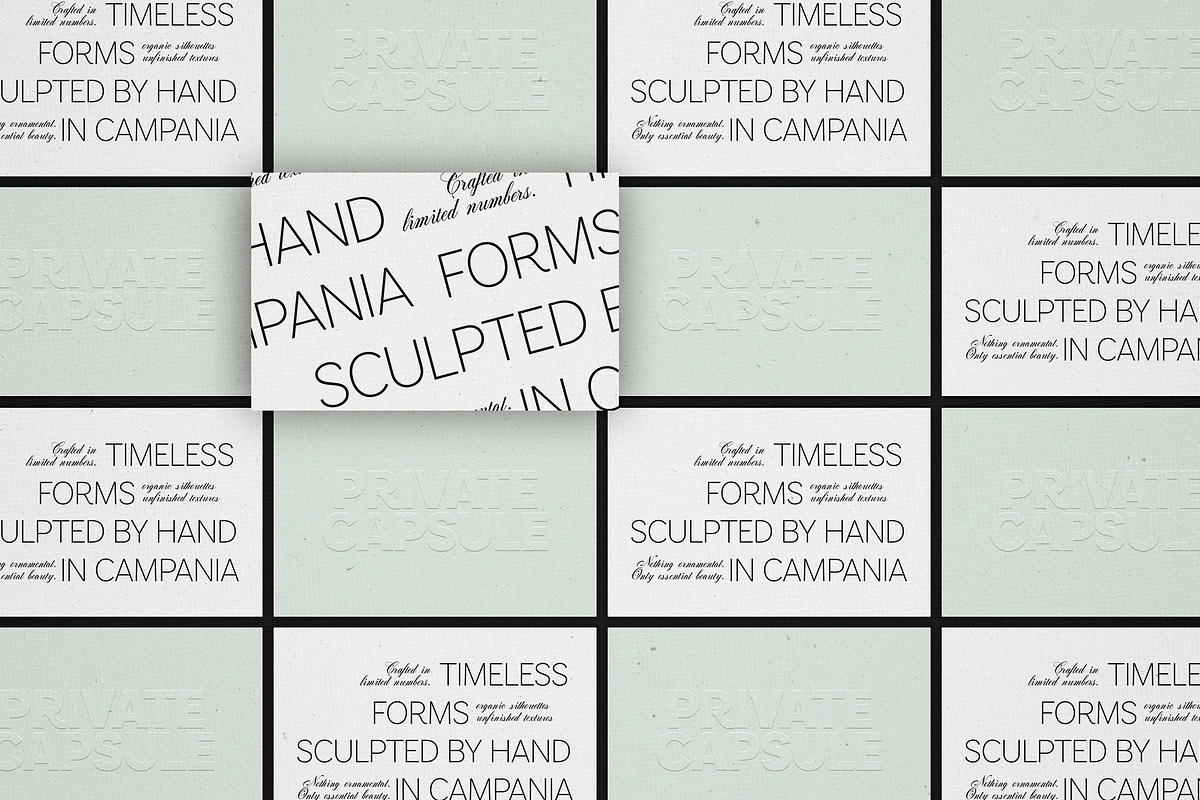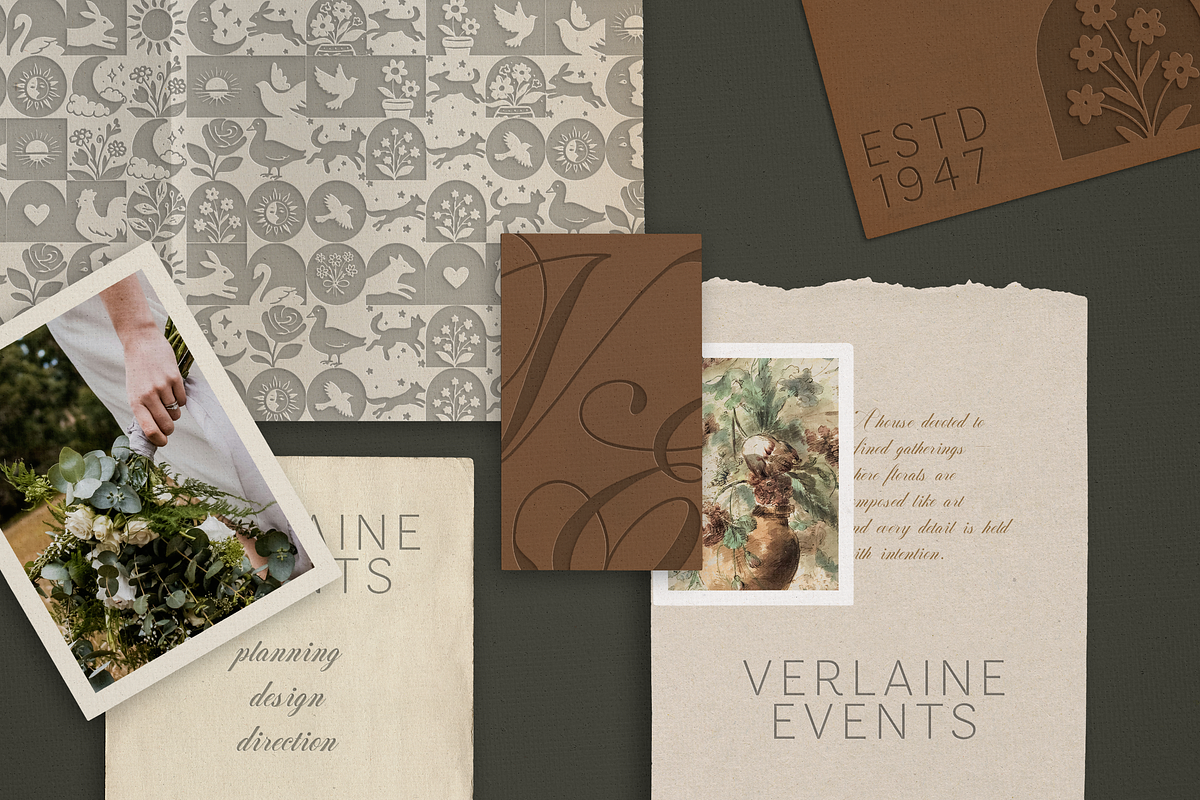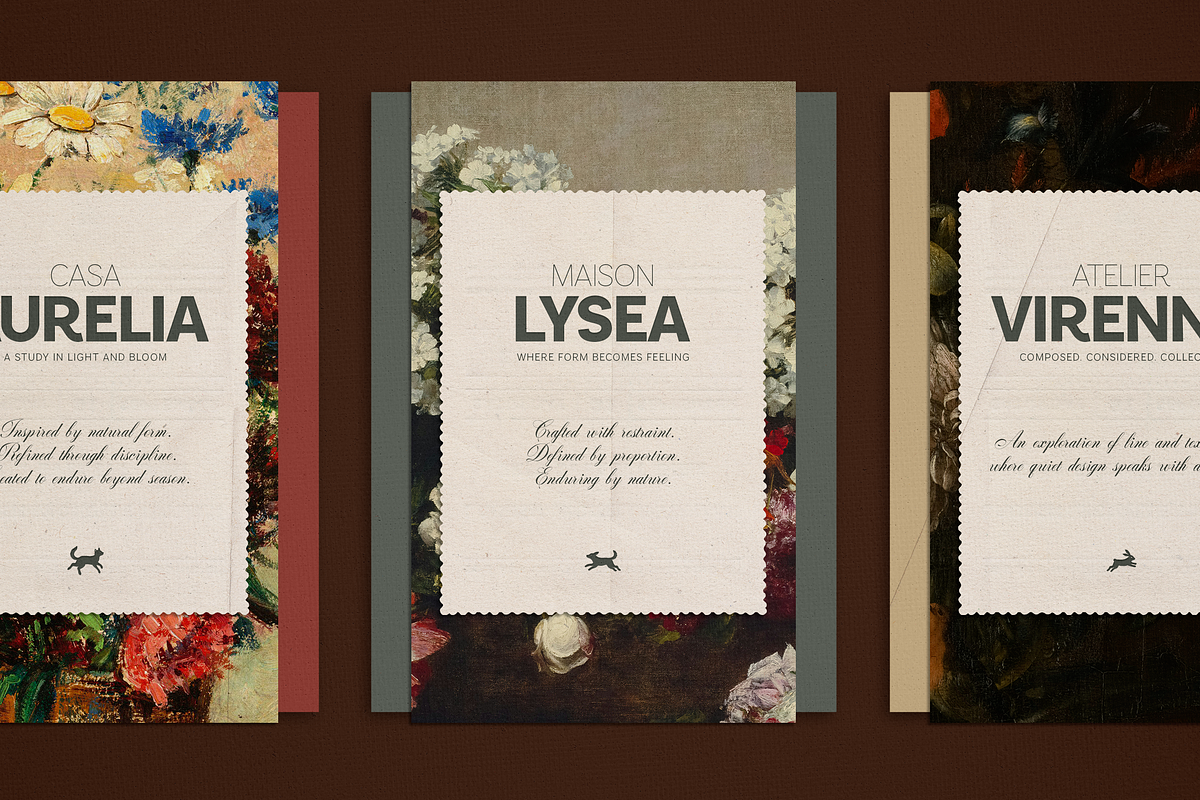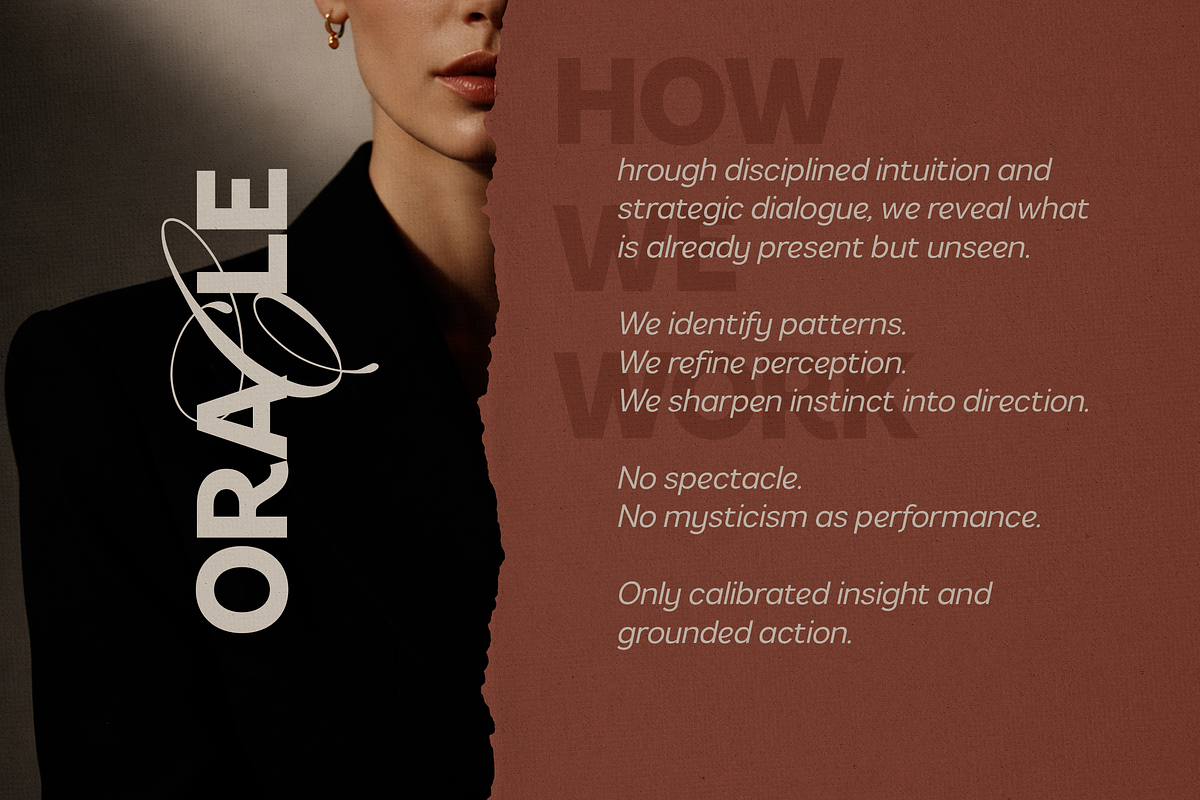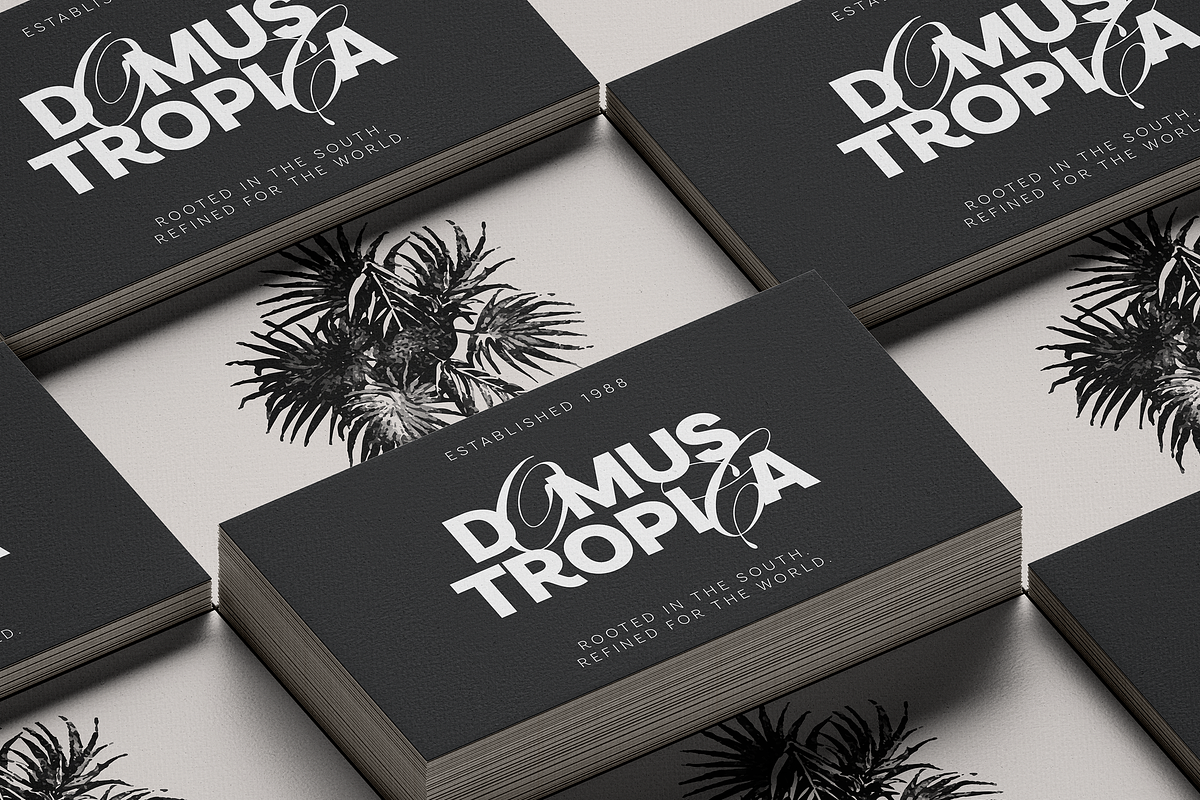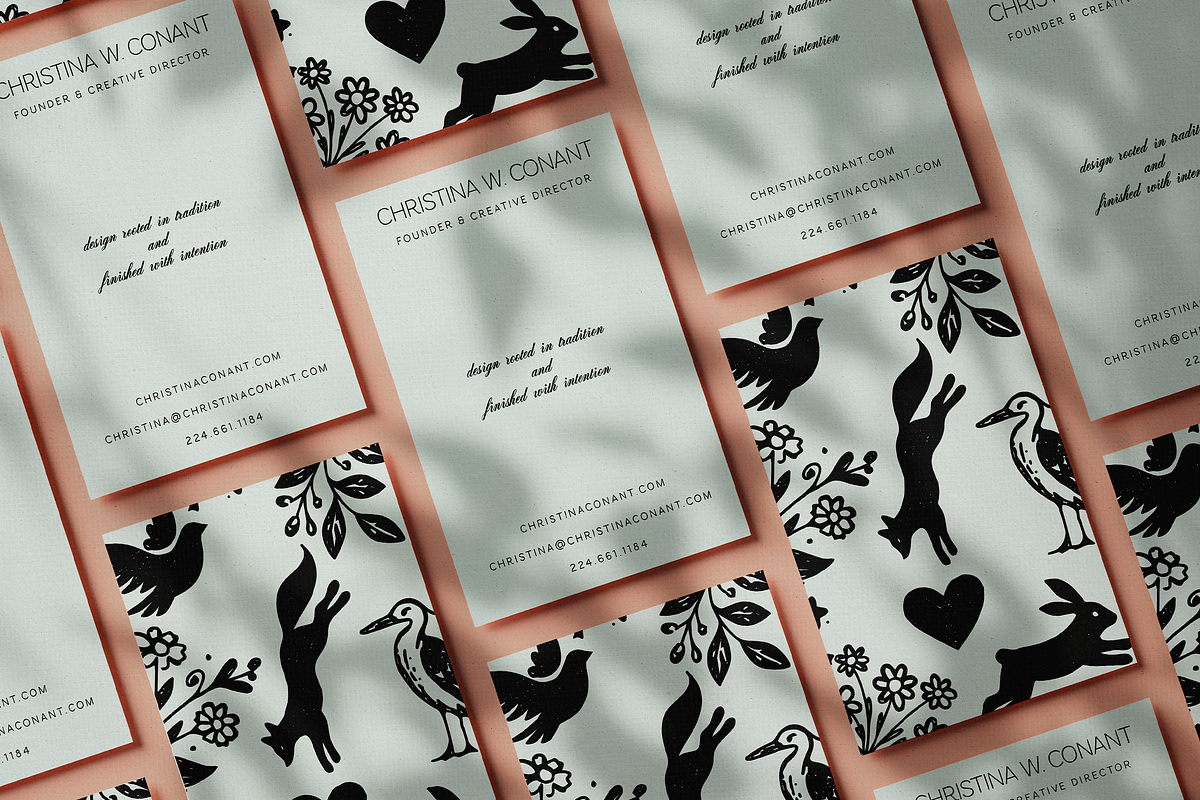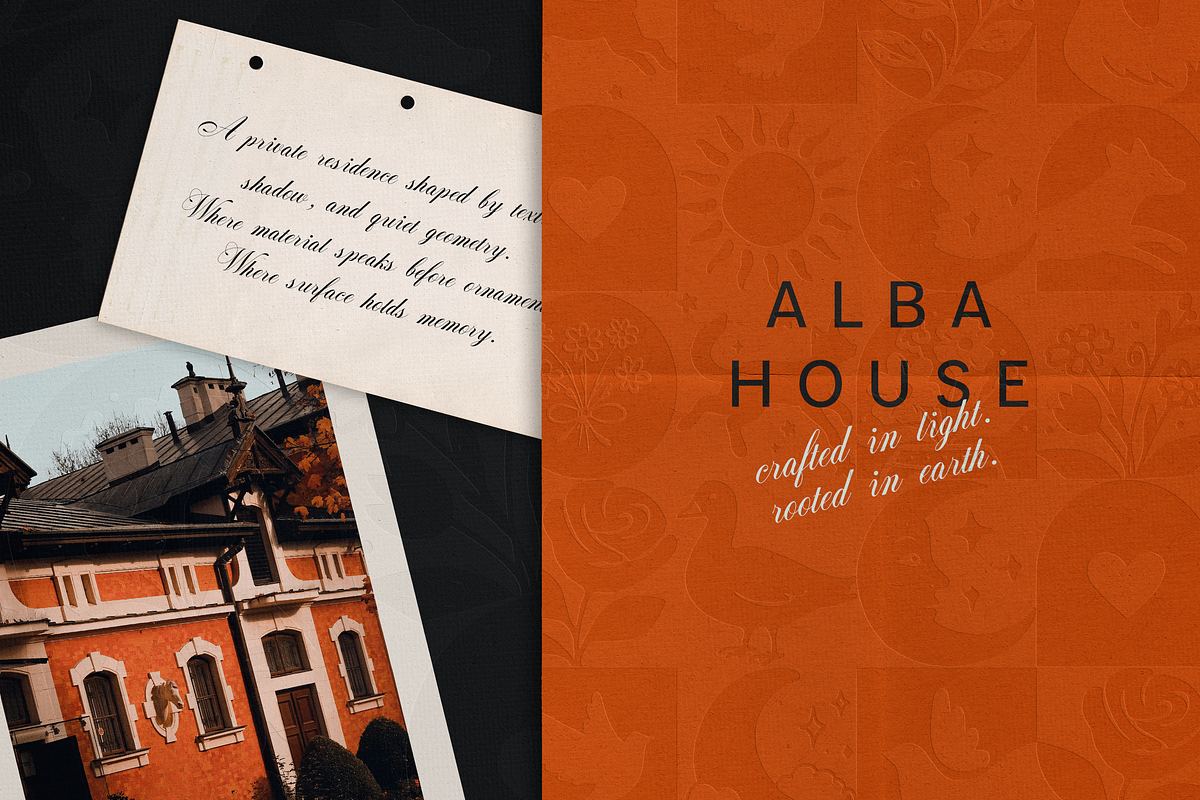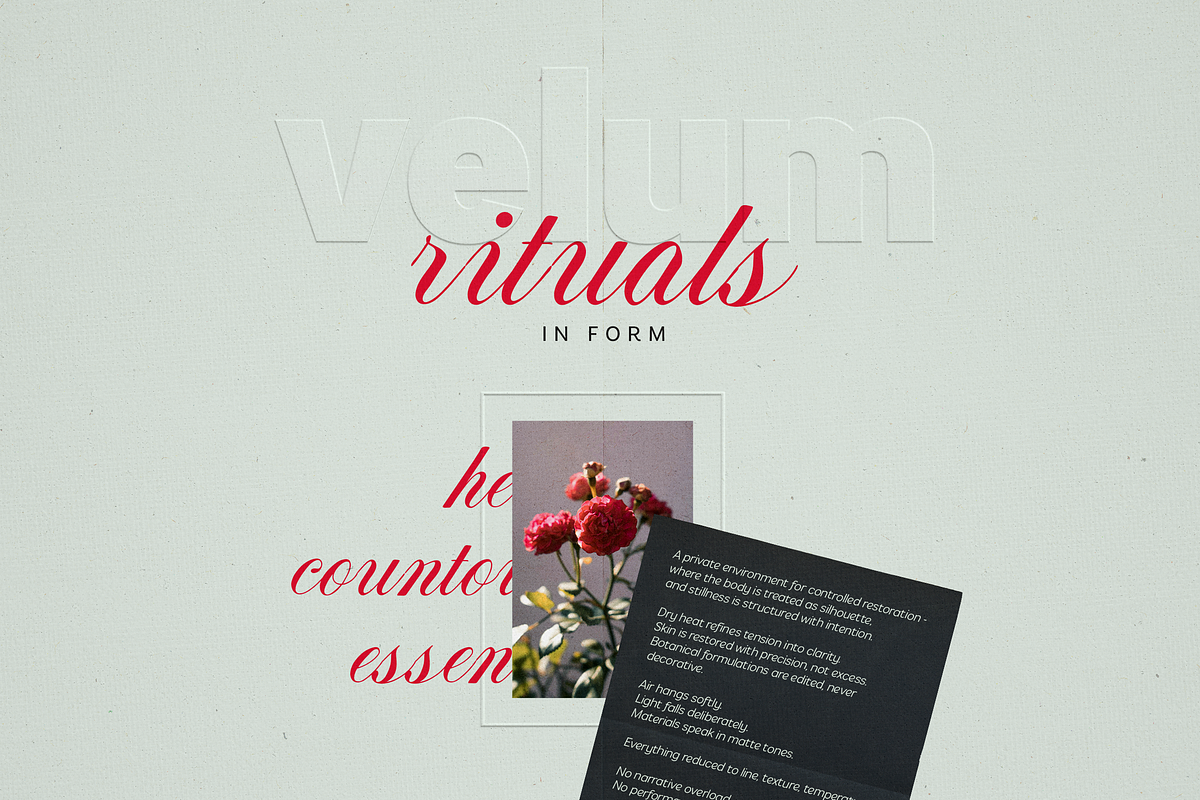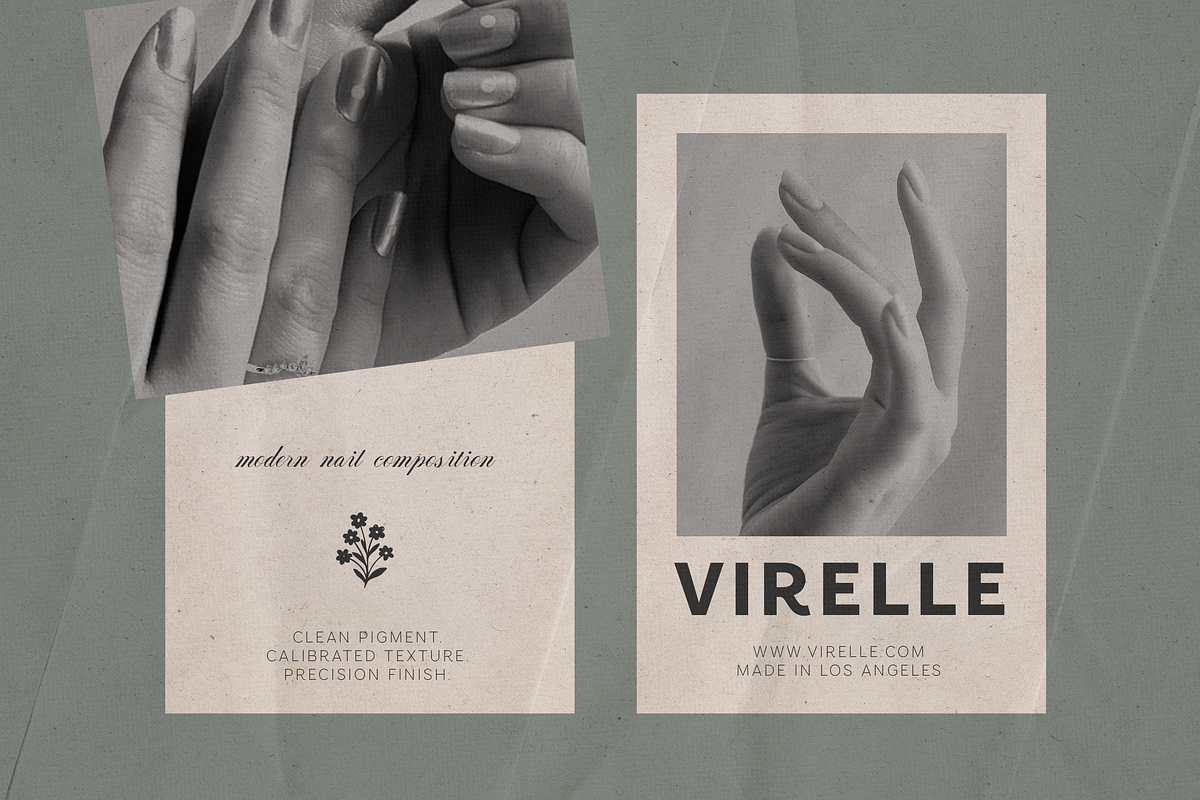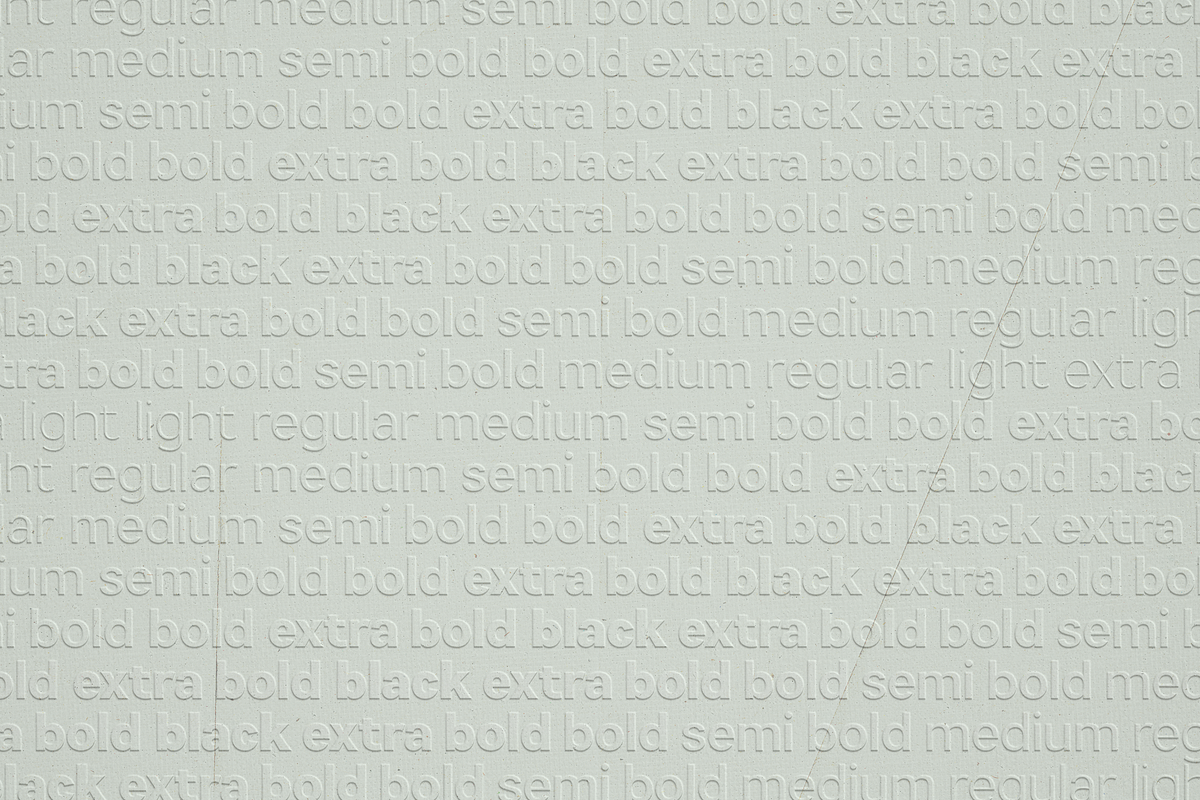
Armonia - Creative Font Duo
Armonia Font Duo
Clean Sans + Organic Cursive Serif Collection
Armonia is a refined, editorial-driven type system designed for brands that live between structure and emotion.
This is not just a typeface. It’s a complete visual language.
A powerful geometric sans serif with 9 weights + matching italics, paired with 3 hand-drawn cursive serif styles, decorative symbols, and pattern elements - all crafted to create timeless, high-end branding.
Perfect for fashion labels, boutique hotels, editorial layouts, packaging design, candle brands, interior studios, beauty products, wedding creatives, and luxury identities.
What Makes Armonia Different?
Modern Sans Serif – 9 Weights + Italics
A clean, confident sans serif built for:
- Editorial headlines
- Logo design
- Branding systems
- Packaging typography
- Web & UI use
- Print layouts
- High-end minimalist identities
Thin, Extra Light, Light, Regular, Medium, Semi Bold, Bold, Extra Bold, Black + matching Italics.
From delicate luxury to bold statement branding — full control across weights.
3 Organic Hand-Drawn Cursive Serif Styles
A contrasting expressive serif script that adds:
- Movement
- Elegance
- Warmth
- Personality
- Editorial sophistication
- Signature logos
- Taglines
- Quotes
- Fashion branding
- Wedding invitations
- Packaging accents
The combination of structured sans + organic serif creates high visual contrast - exactly what modern premium branding demands.
26 Hand-Drawn Symbols & Illustrations
A curated set of custom icons inspired by:
- Nature
- Vintage ornament
- Folk motifs
- Editorial minimalism
Ideal for:
- Logo marks
- Packaging seals
- Labels
- Brand patterns
- Social media posts
- Luxury monograms
26 Seamless Pattern Elements
Designed to create:
- Background textures
- Packaging wrap designs
- Brand identity systems
- Website backgrounds
- Textile-inspired visuals
These pattern components allow you to build cohesive brand environments — not just typography.